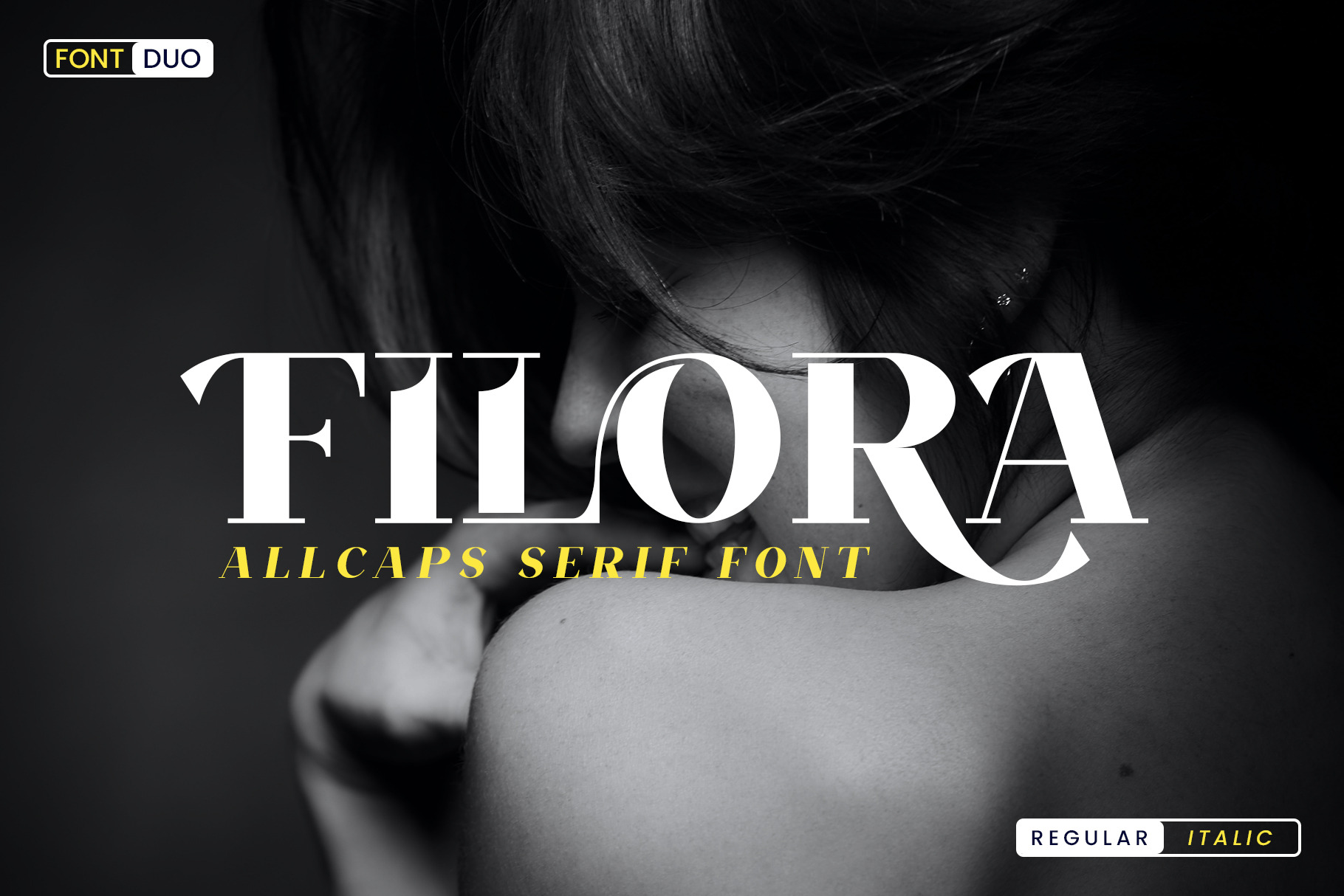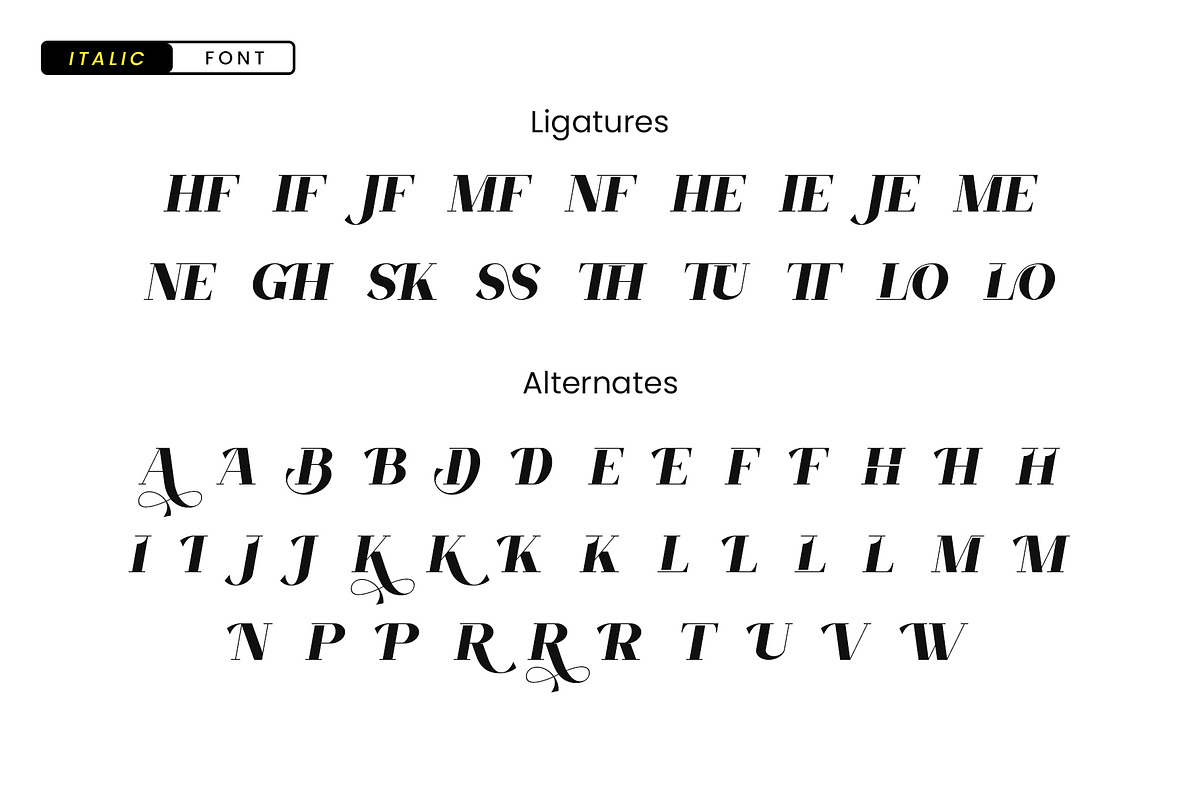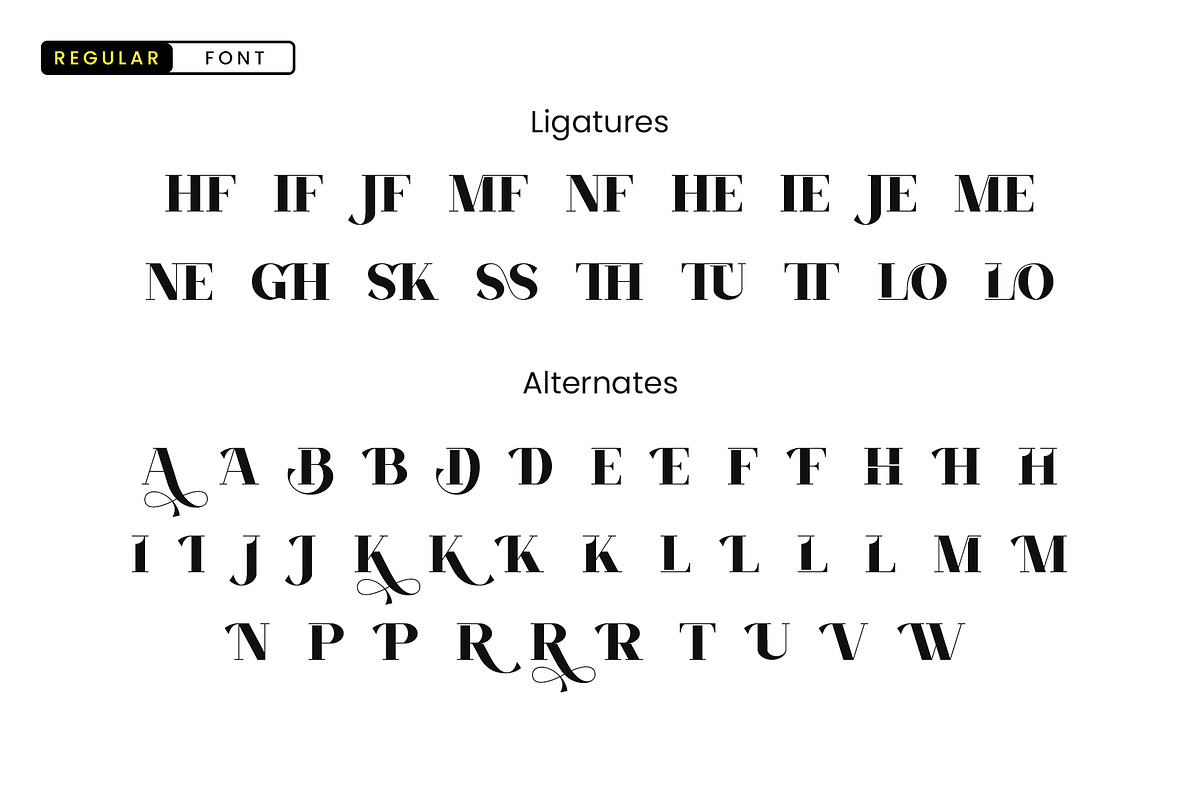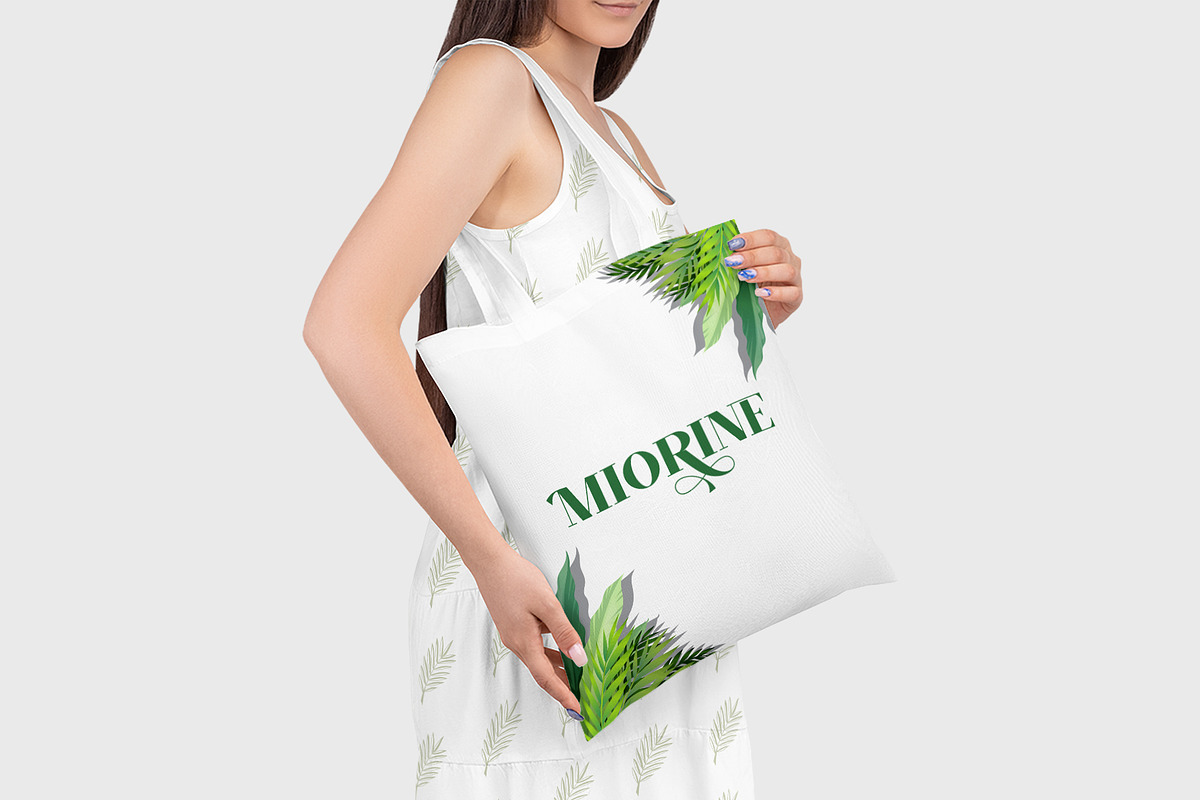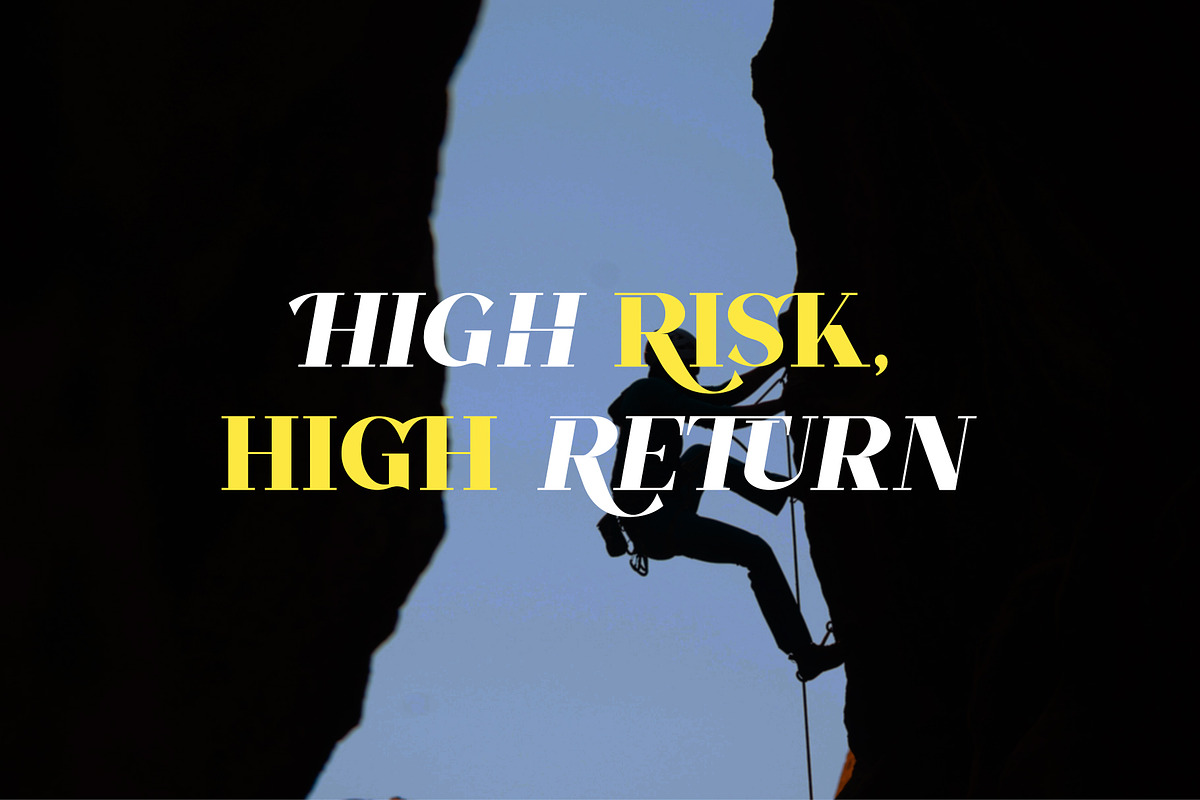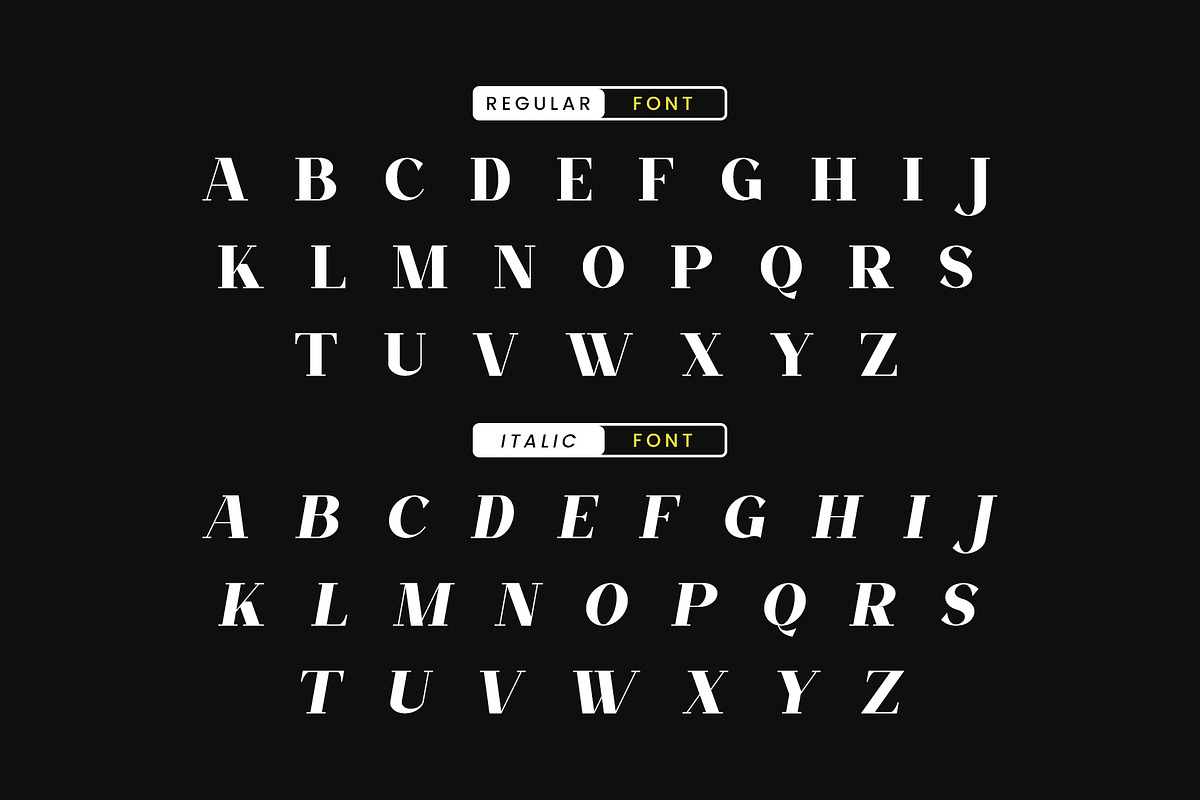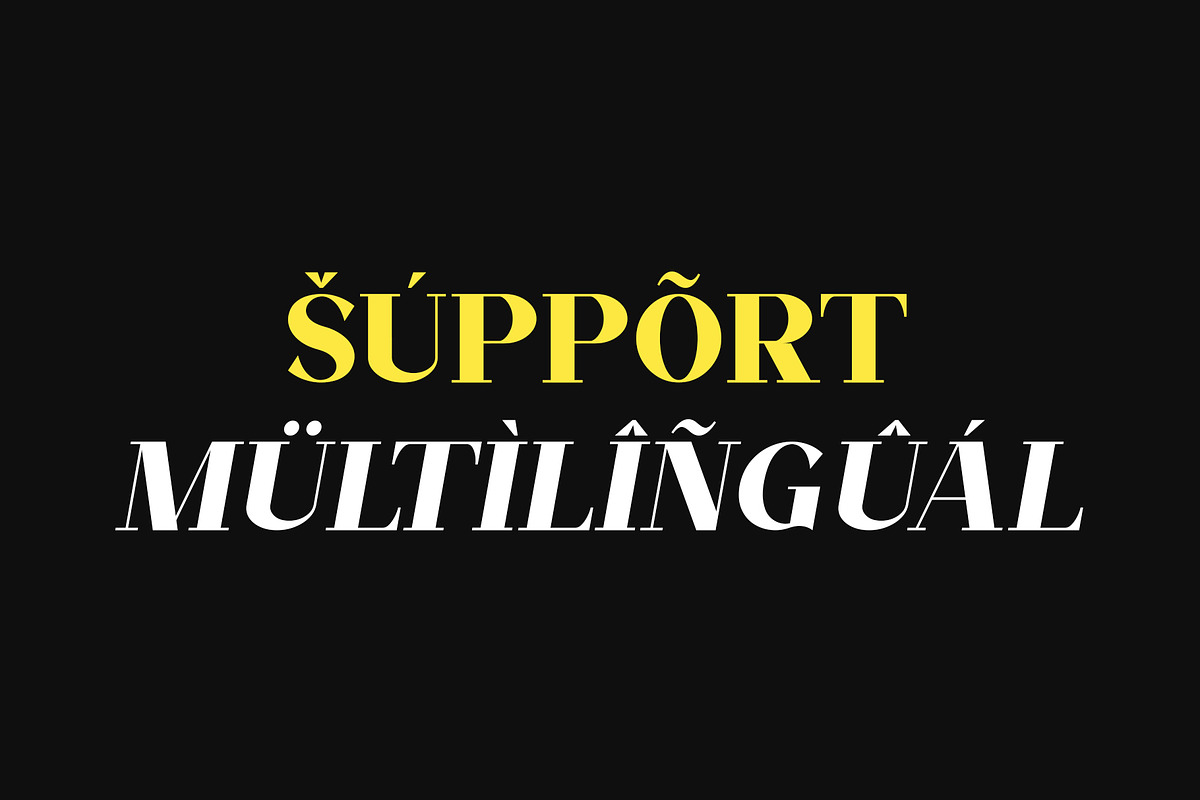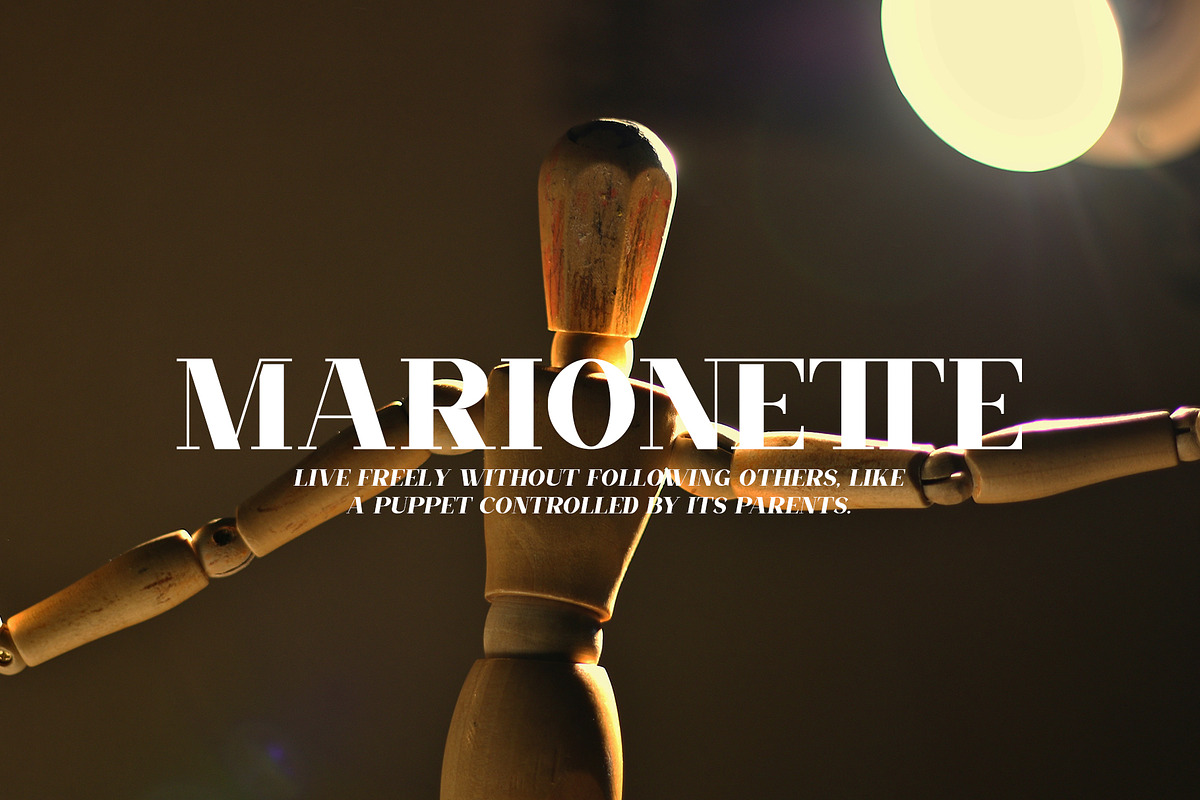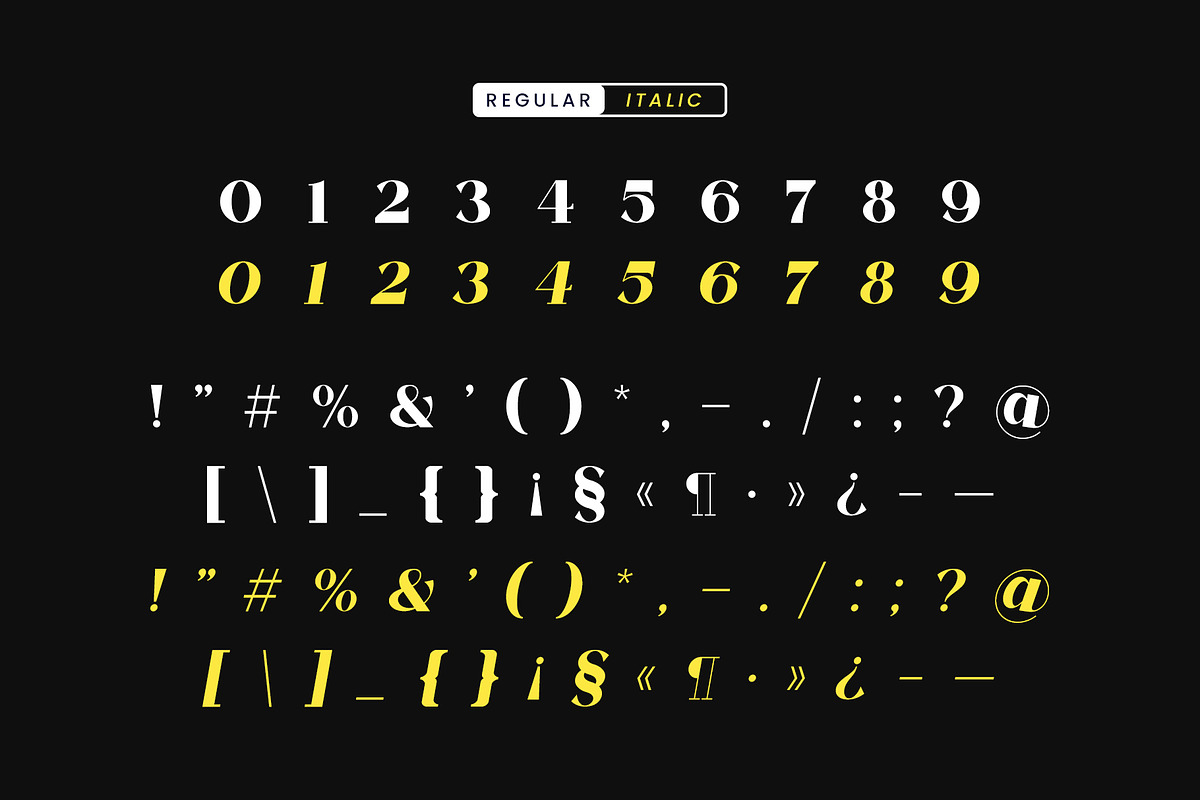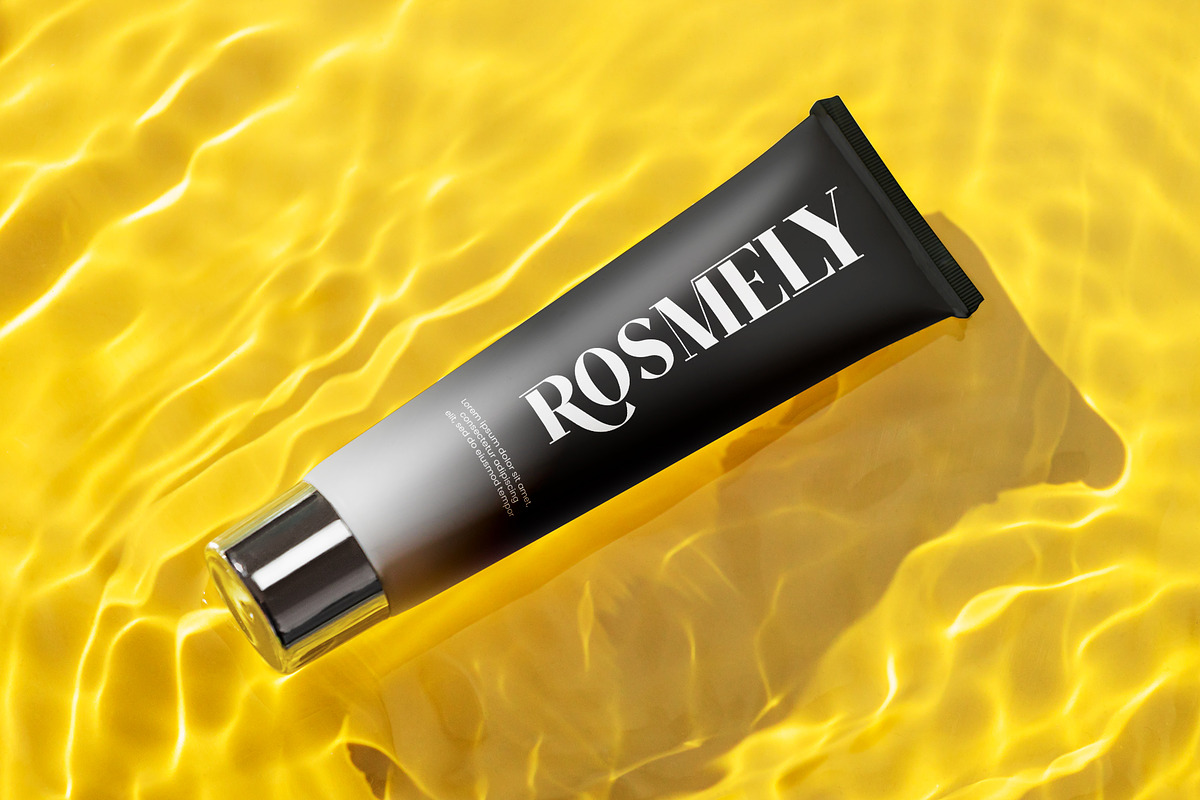
Filora All Caps Serif Font
Filora Serif is a an elegant and smooth combine typeface regular and italic serif font. He has a beautiful character. It fits perfectly with invitation card designs, company logos, movie titles, movie names, business cards, book titles, brand names and various other designs. Filora Serif is a subtle serif font that exudes sophistication and elegance. Its stylish alternations and ligatures make this font the perfect partner for any project.